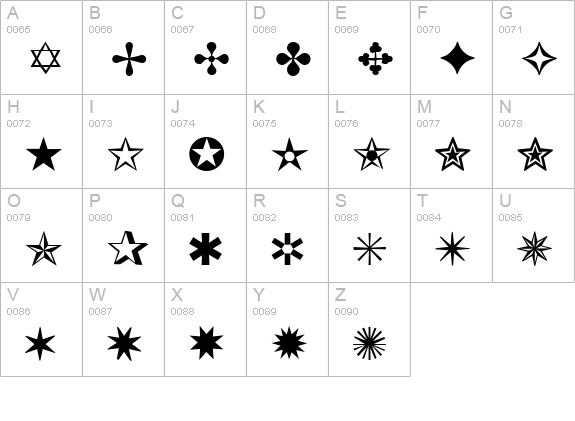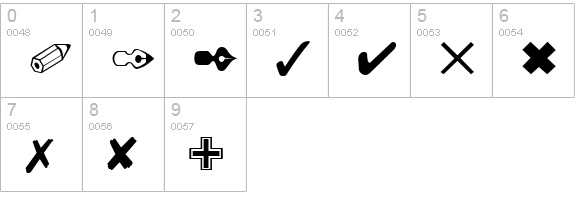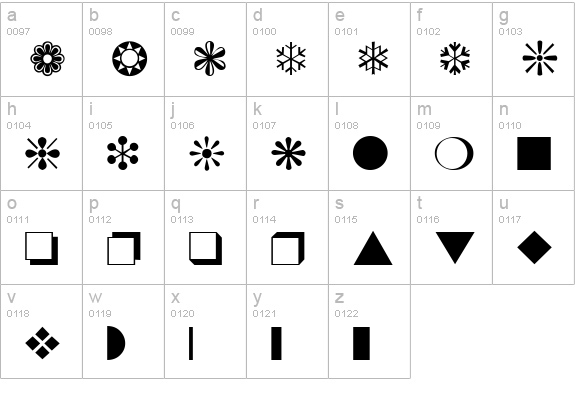
Dingbats1 Font Details
Dingbats1 font is a whimsical and playful typeface that features a collection of unique symbols and icons. Perfect for adding a touch of fun and creativity to your design projects, this font is sure to catch the eye of your audience. With a wide range of characters to choose from, Dingbats1 font offers endless possibilities for creating eye-catching designs. The best part? Dingbats1 font is available for free download at FontsMarket.com. Simply visit the website and start using this delightful font in your projects today. Whether you're designing invitations, posters, or social media graphics, Dingbats1 font is the perfect choice for adding a touch of personality to your work. Download it now and let your creativity shine with this charming and versatile font.